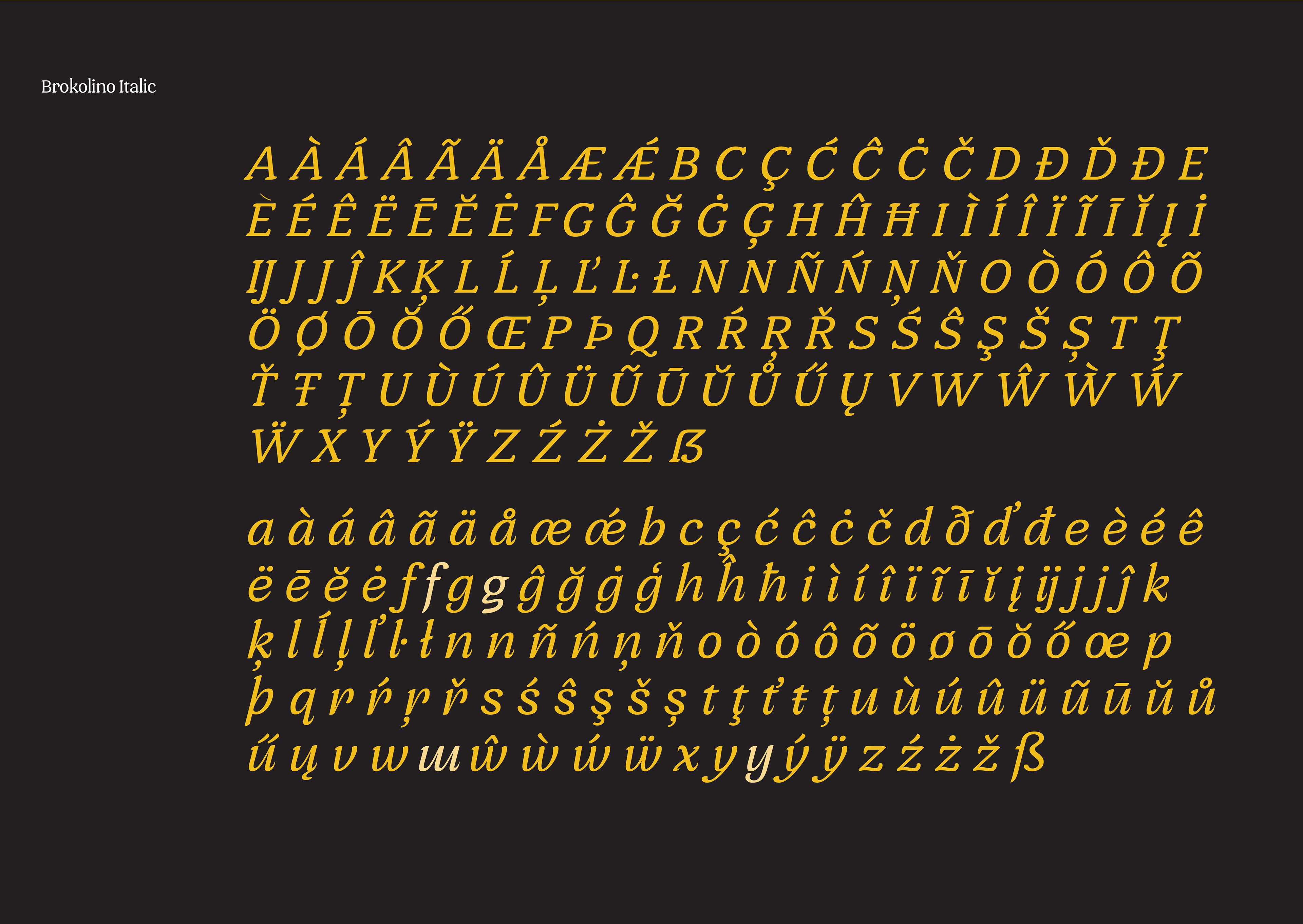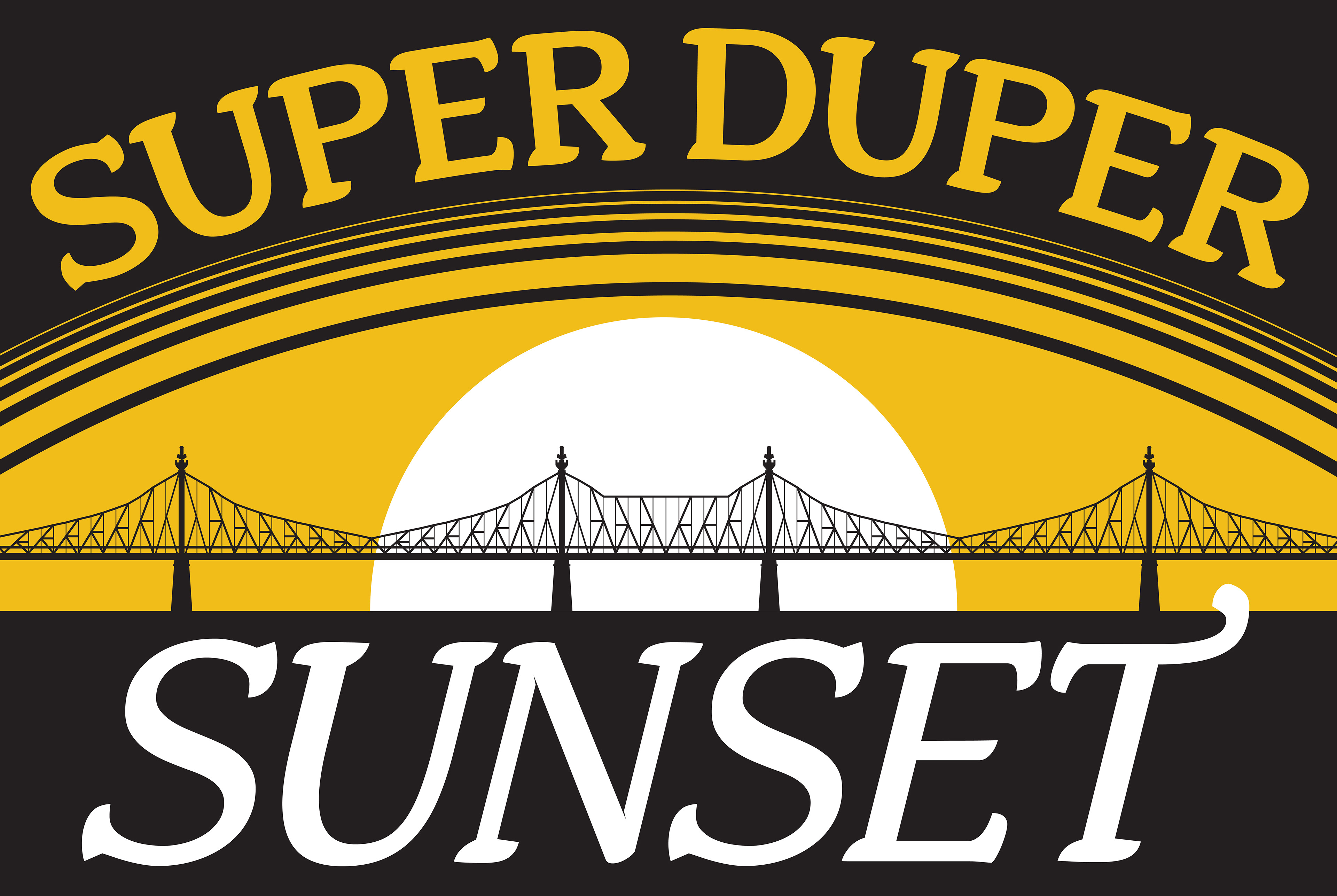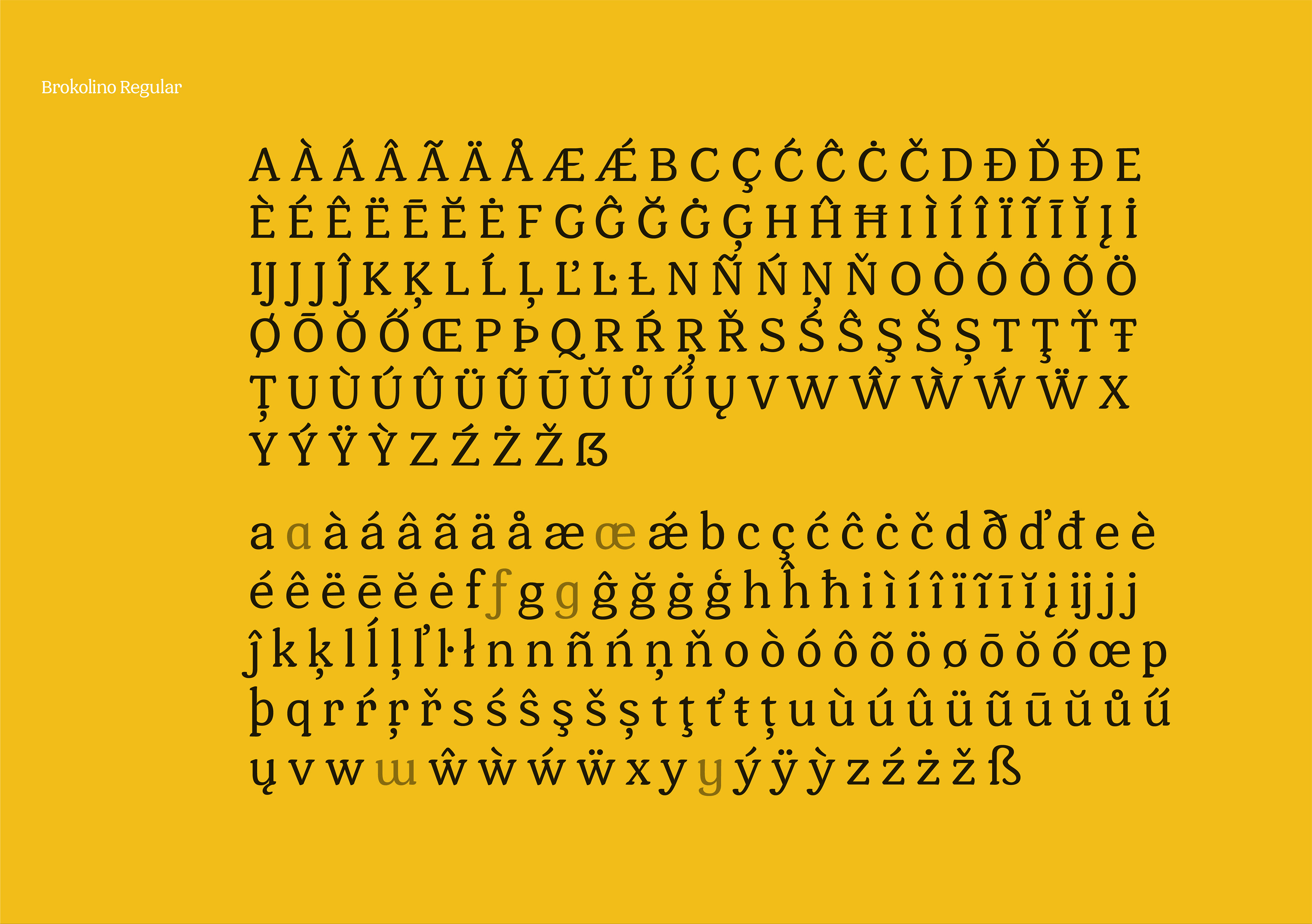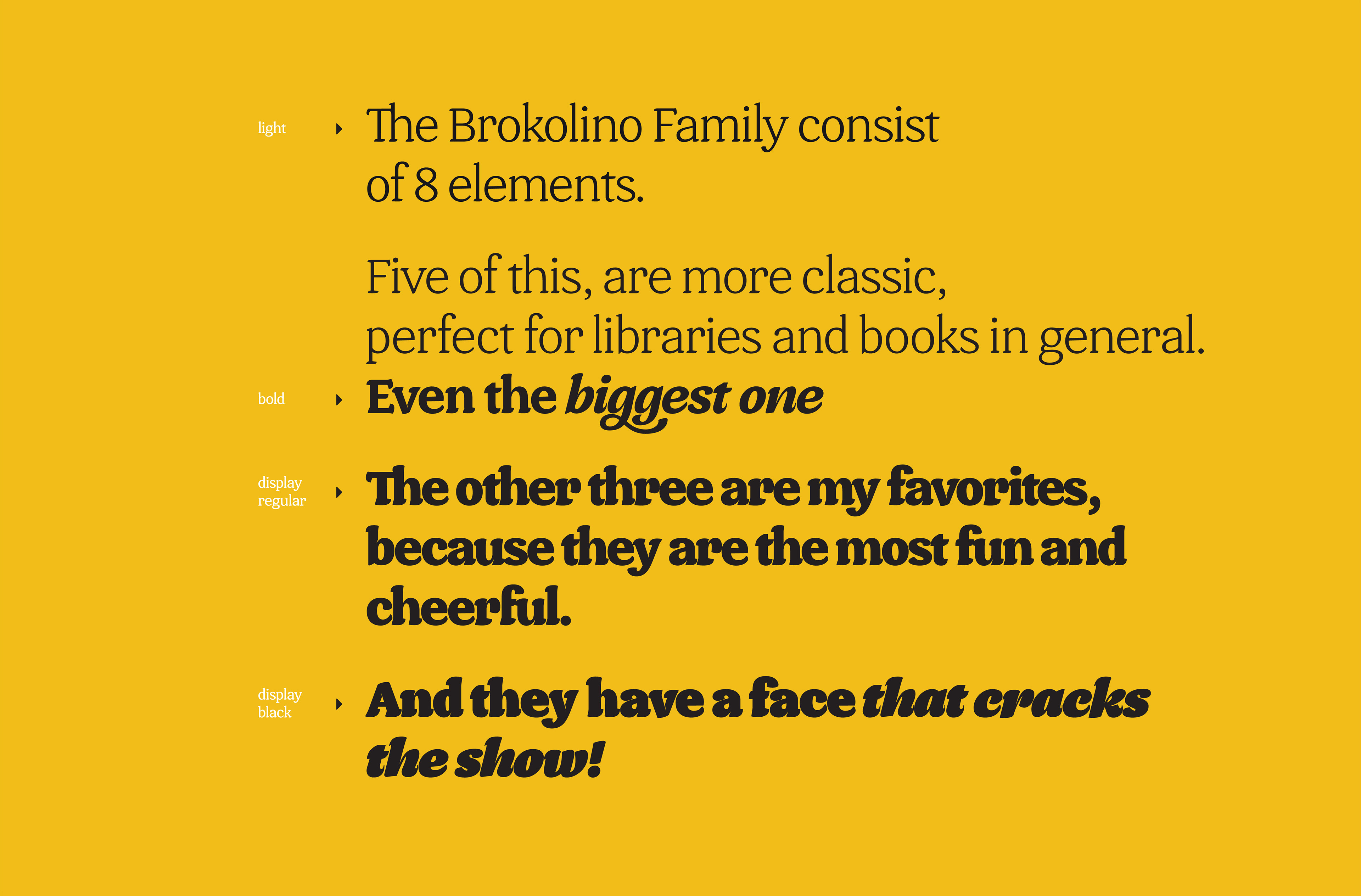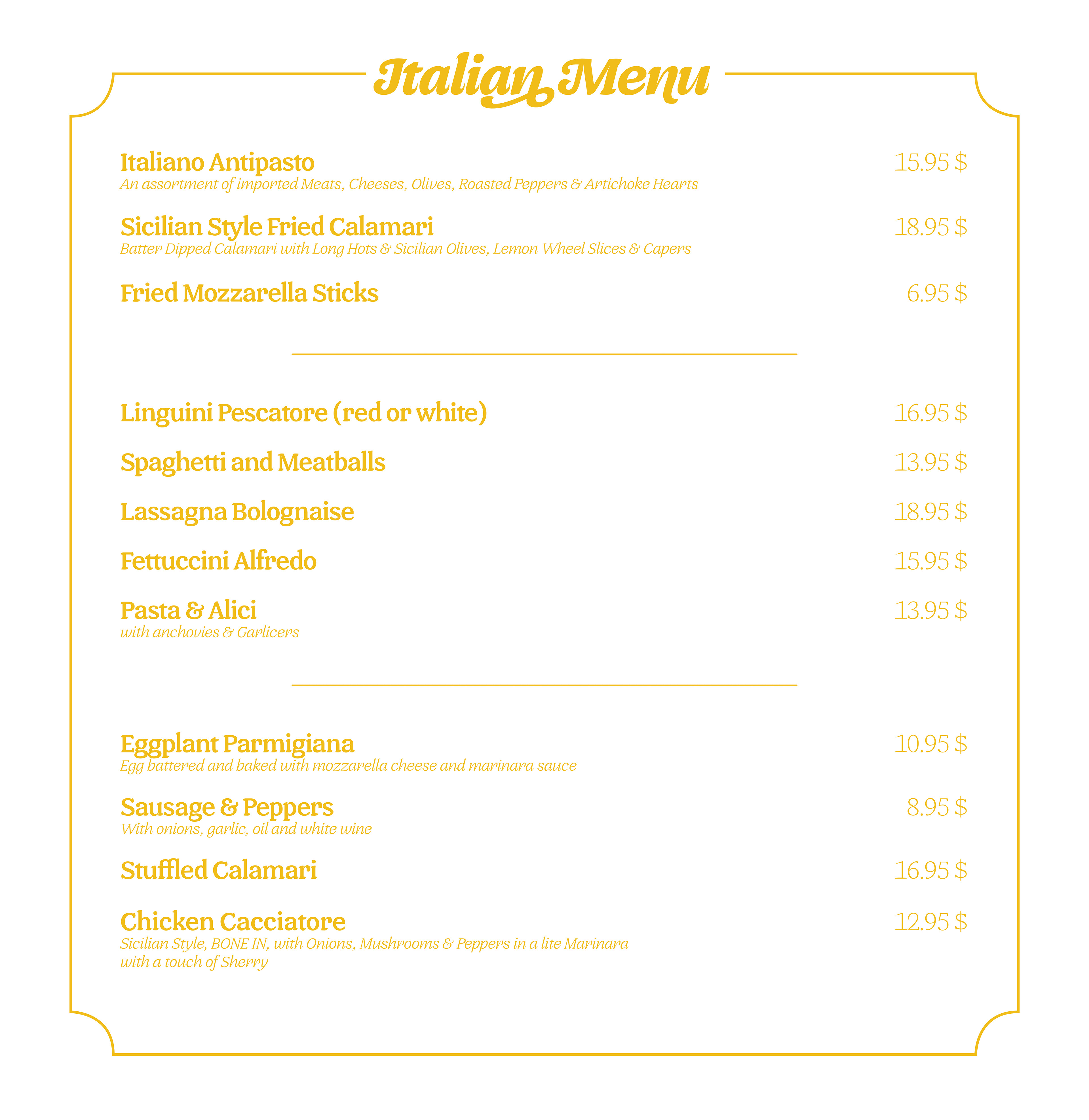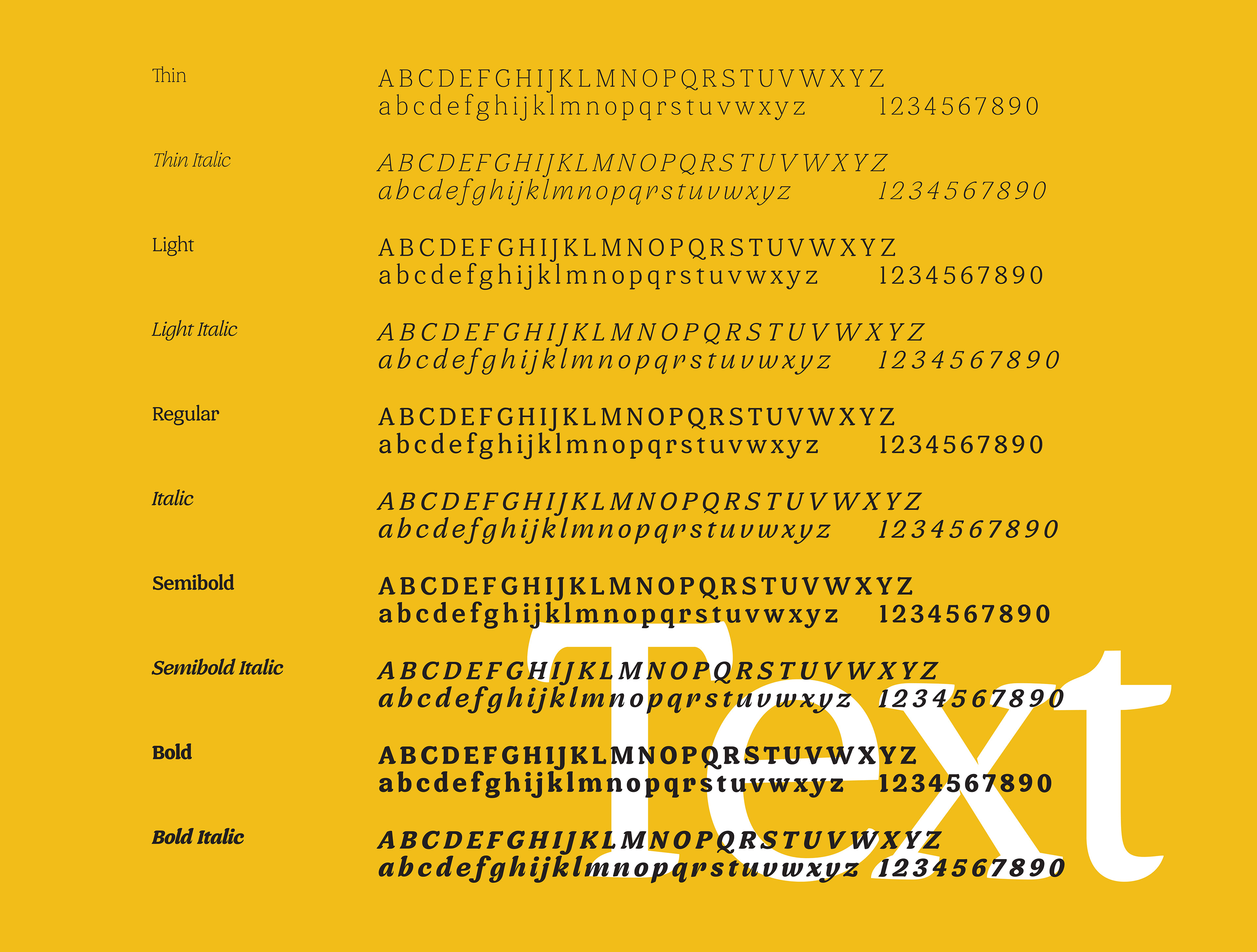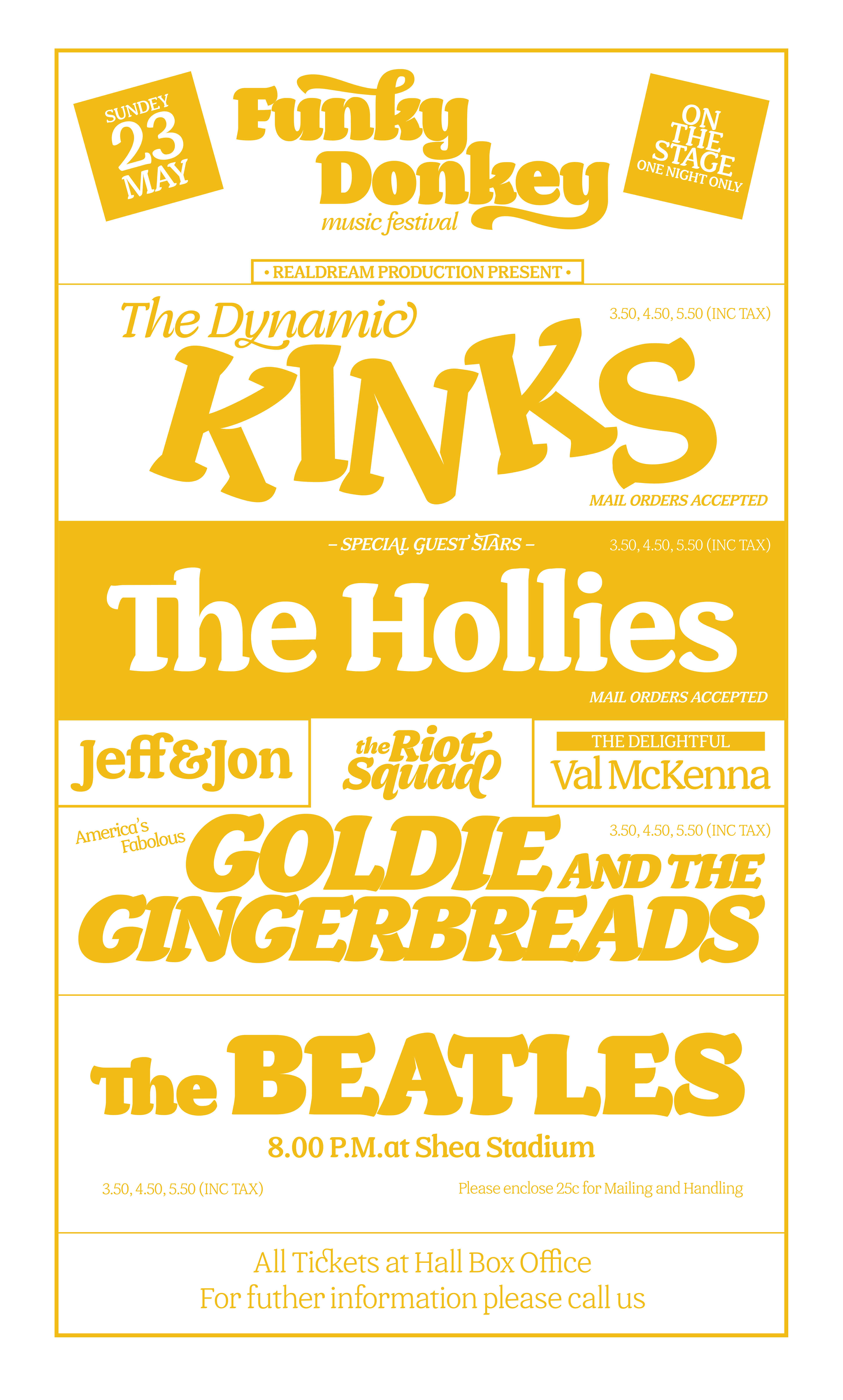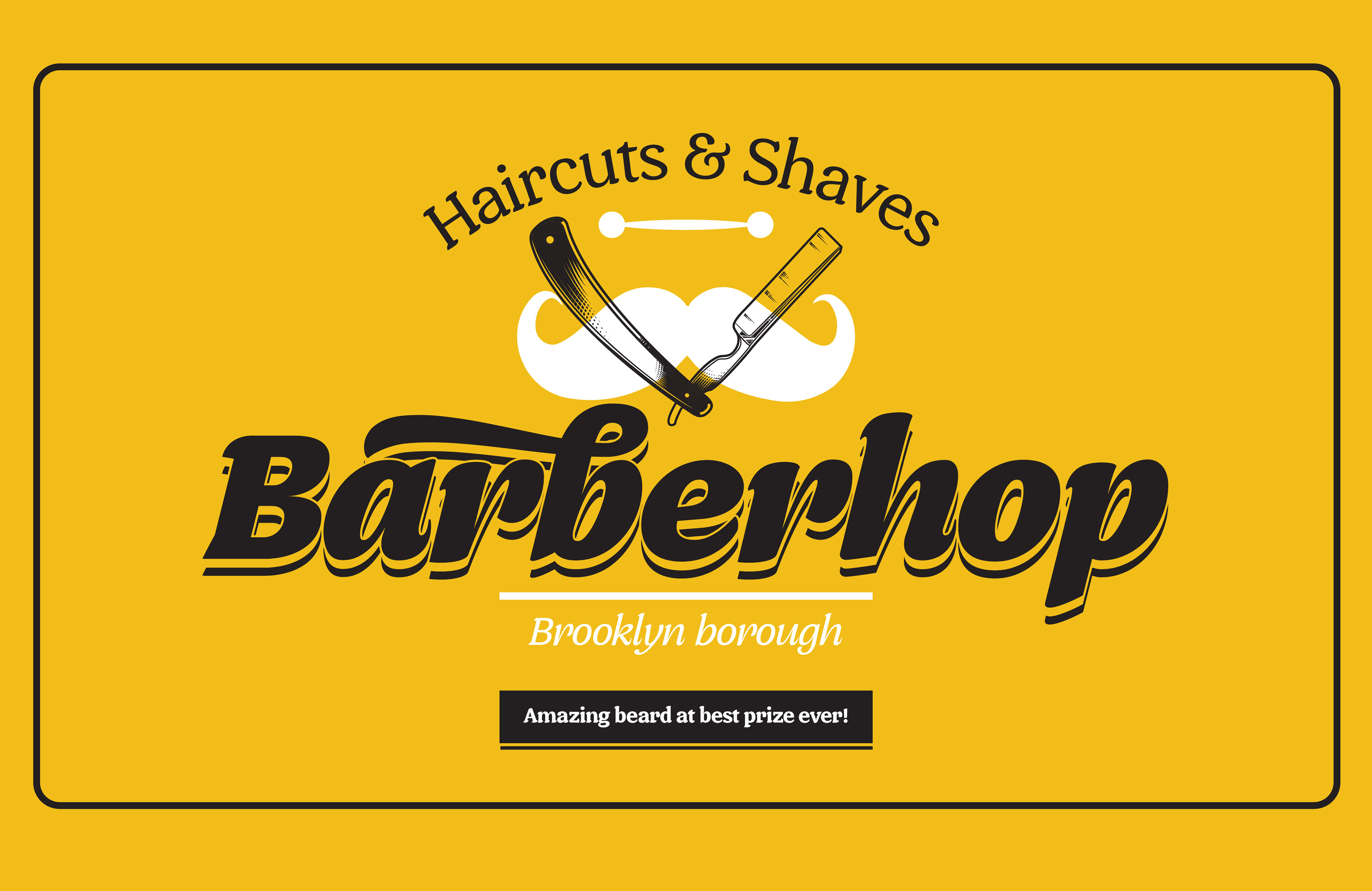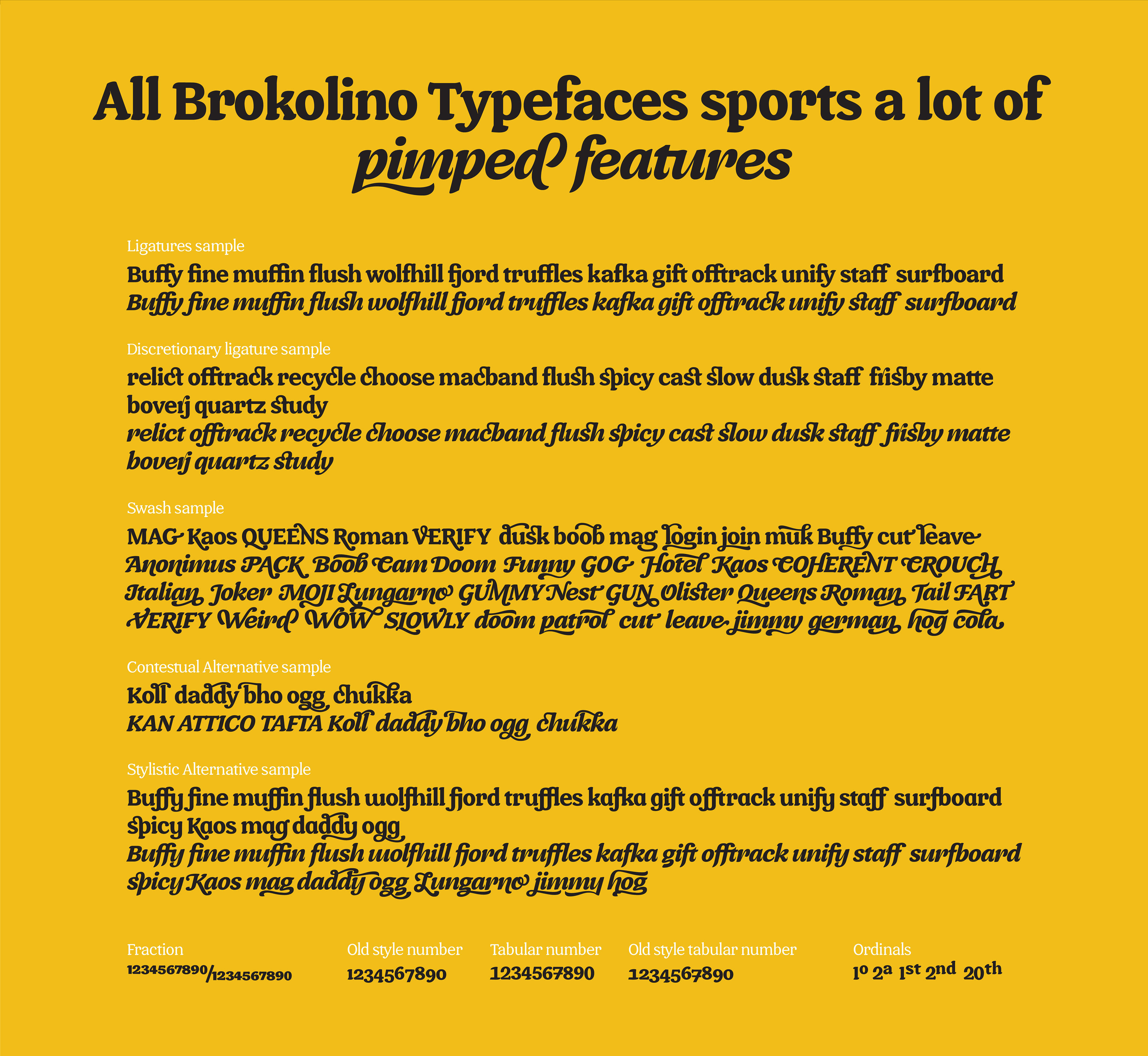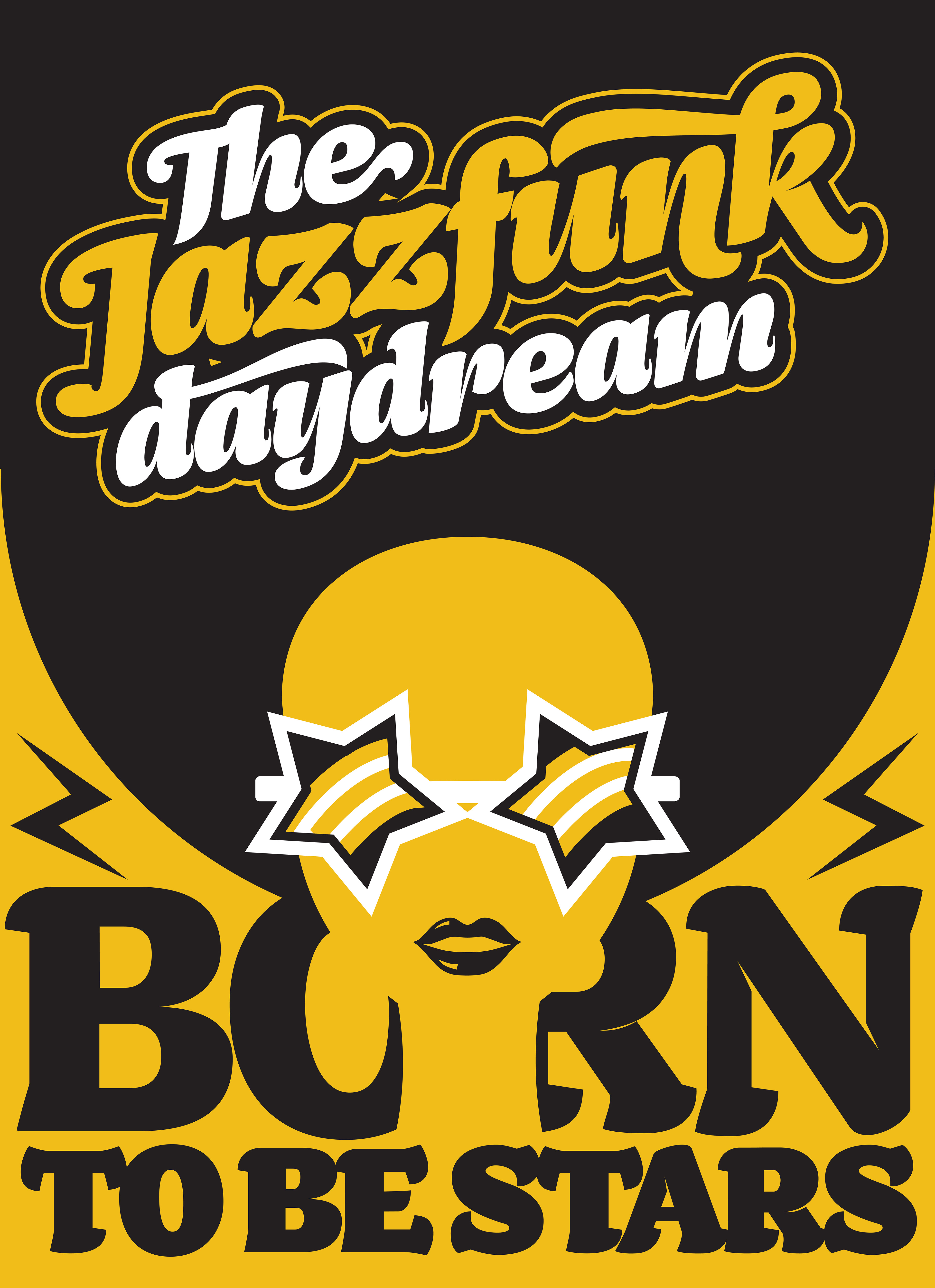
Borkolino is a modern and playful typefamily designed by Marco Battaglia. Its design is strongly influenced by humanist broad nib calligraphy and 1970’s popular type styles. The type family is composed of two parts: it features five text weights and three display weights with respective italics. Text weights are characterized by low contrast and their light texture is perfect for long stretches of text in publications, magazines or books. Display weights have a more fun and playful approach, suitable for brands, headlines or label design. The italic is a true italic and it sport variable angles (from 11° to 14°) and a truly calligraphy feeling approach. The gradually retracting serifs and large x-height emphasize the influence of humanist letterforms in the lighter weights and provide a dense and consistent texture to the heavier weights. The family features extended Latin support including the most necessary Opentype features, such as fun ligatures, alternates, swash and more!